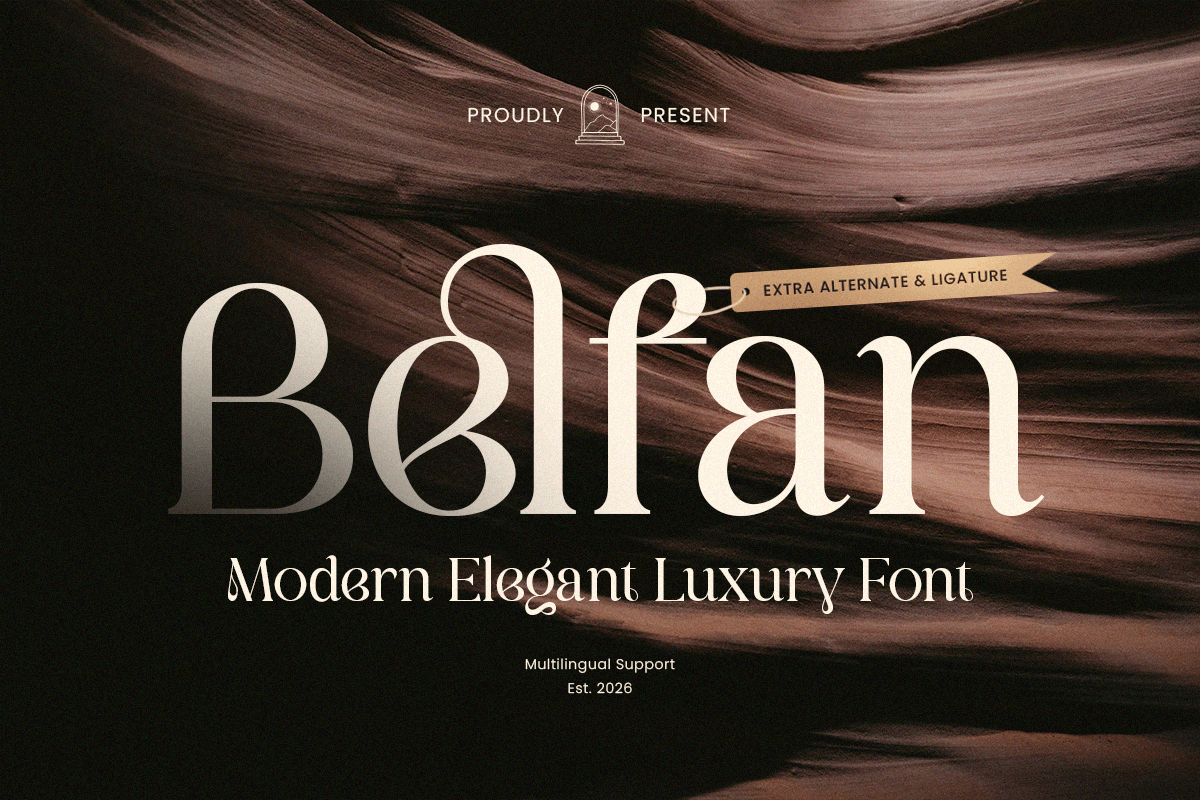
Belfan
-Modern Exclusive Branding FontBelfan – Modern Exclusive Branding Font
Belfan is a modern elegant luxury font crafted to deliver refined sophistication with a contemporary high-end presence. Designed with polished letterforms and balanced proportions, this typeface creates a premium visual tone that feels confident, stylish, and instantly brand-ready.
Built for luxury-driven typography, Belfan works beautifully across logos, wordmarks, brand identity systems, website headers, editorials, packaging, labels, invitations, signage, and upscale marketing visuals. Its elegant structure ensures clarity and readability, while the modern luxury styling adds prestige and exclusivity across both print and digital design.
Whether you’re creating a fashion label, building a beauty brand, designing premium packaging, or crafting an editorial layout with a high-end feel, Belfan provides a sophisticated typographic foundation that elevates your visuals with timeless class.
Inspiration Behind Belfan
Belfan is inspired by contemporary luxury branding and refined editorial typography—where clean structure, elegant rhythm, and subtle detail define premium identity. The design focuses on modern elegance and confident presence to support upscale logos and stylish brand systems with lasting impact.
Belfan Font Features:
Modern elegant luxury letterforms optimized for logo and branding
Refined structure with premium, high-end visual character
Strong readability for headlines, wordmarks, and editorial layouts
Luxury logos, wordmarks, and premium brand identity systems
Fashion, beauty, skincare, fragrance, and boutique branding
Editorial layouts, magazine covers, and headline typography
Premium packaging, labels, invitations, and elegant stationery
Social media campaigns, websites, and upscale marketing assets
Elevate your premium identity with Belfan—a modern elegant luxury font built for timeless, high-end branding. ✨